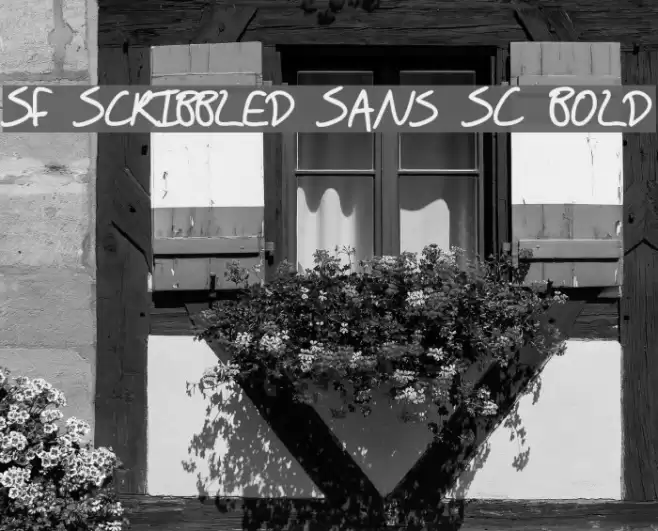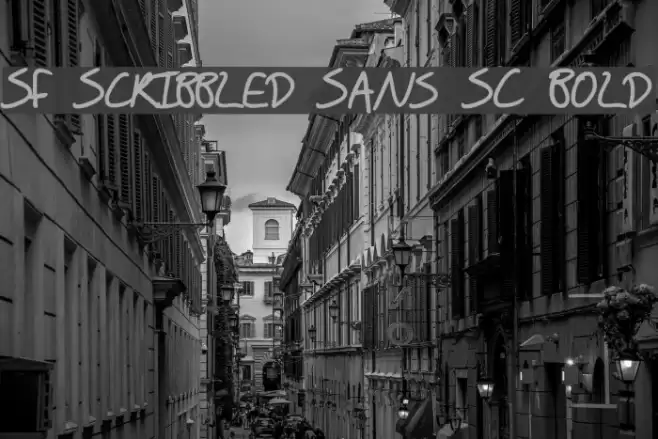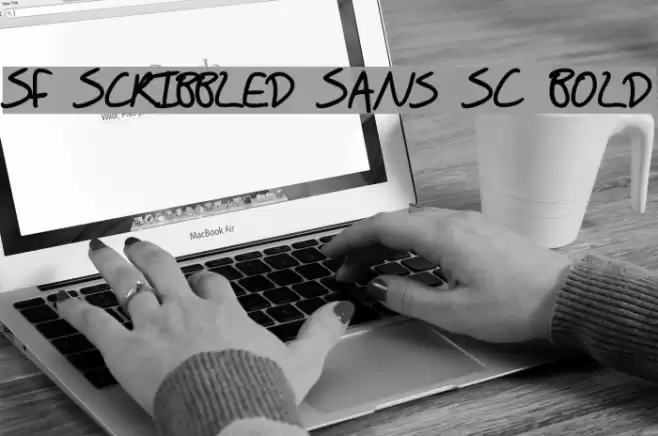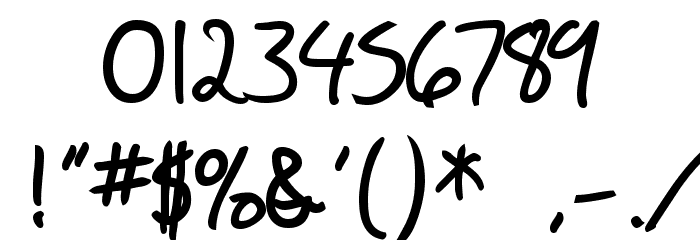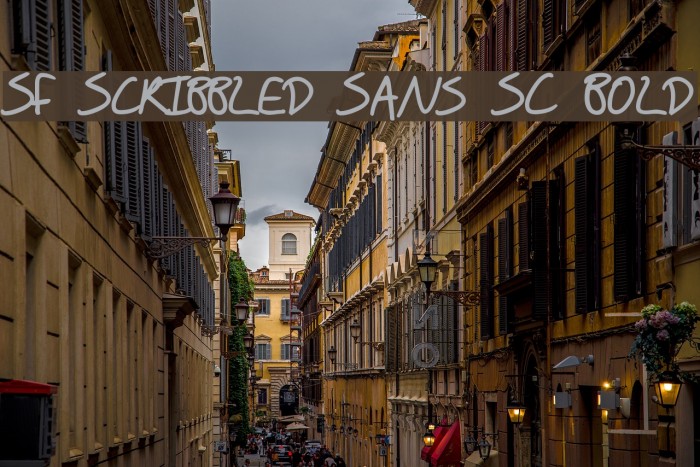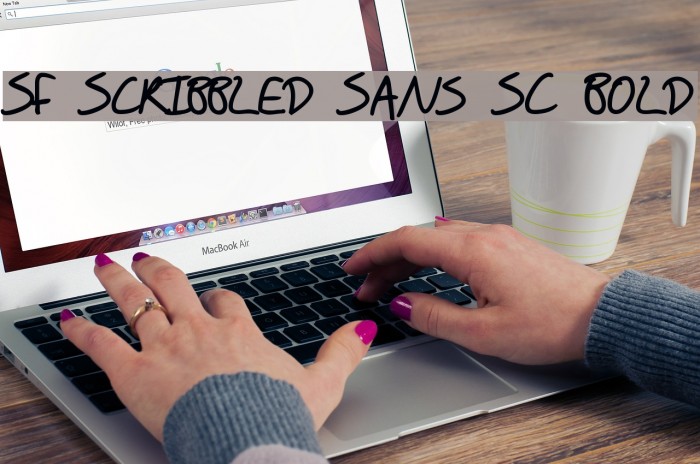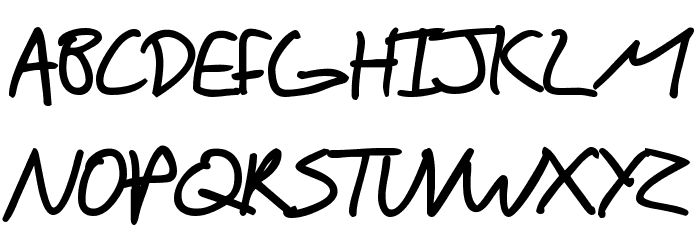
SF Scribbled Sans SC Bold Font
SF Scribbled Sans SC Bold Description
This font features a playful and casual handwritten style, characterized by its bold and dynamic strokes. The letters are slightly slanted, giving a sense of motion and energy. Each character is distinct, with a rough, scribbled appearance that adds a personal touch. The uppercase and lowercase letters maintain a consistent style, while the numerals and special characters blend seamlessly with the overall design. This font exudes a sense of informality and creativity, making it ideal for projects that require a personal or artistic flair.
A bold, playful handwritten font with a dynamic, scribbled style from Handwritten fonts.
- Proposed Projects: Ideal for creative projects such as greeting cards, posters, children's books, and casual branding.
- Overall Style: Casual, Playful
- Use Case: Headlines, Informal text, Creative projects